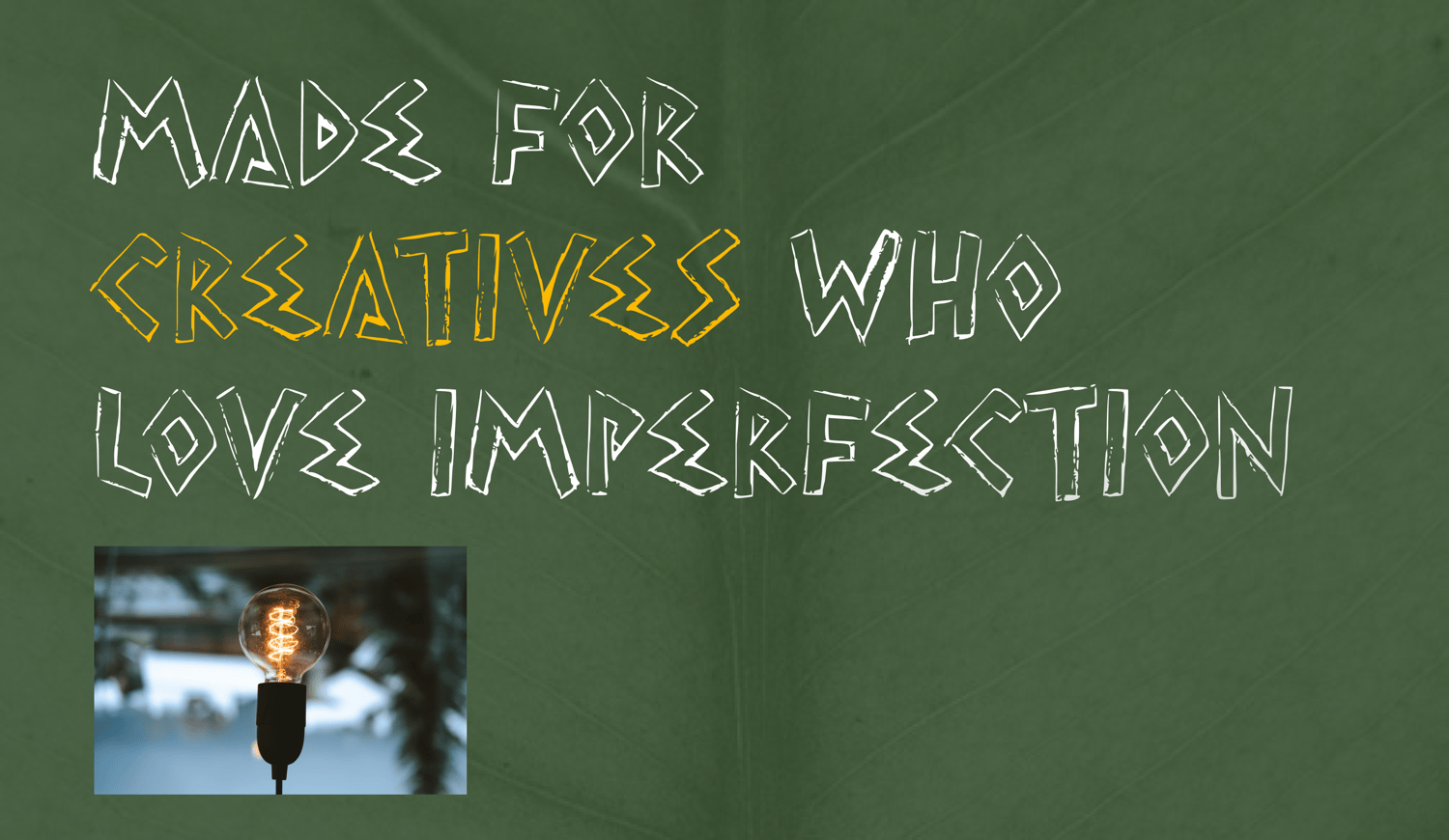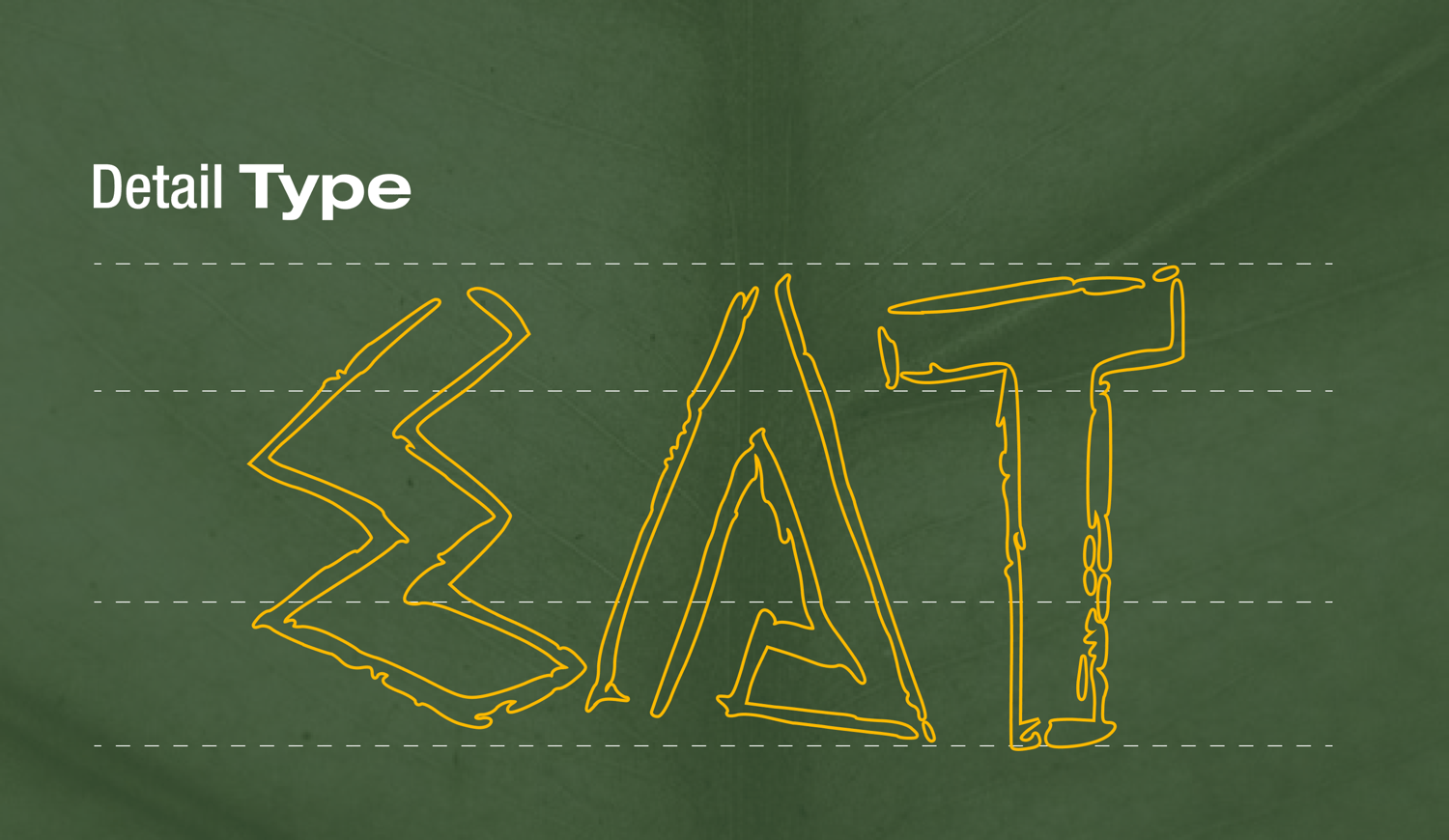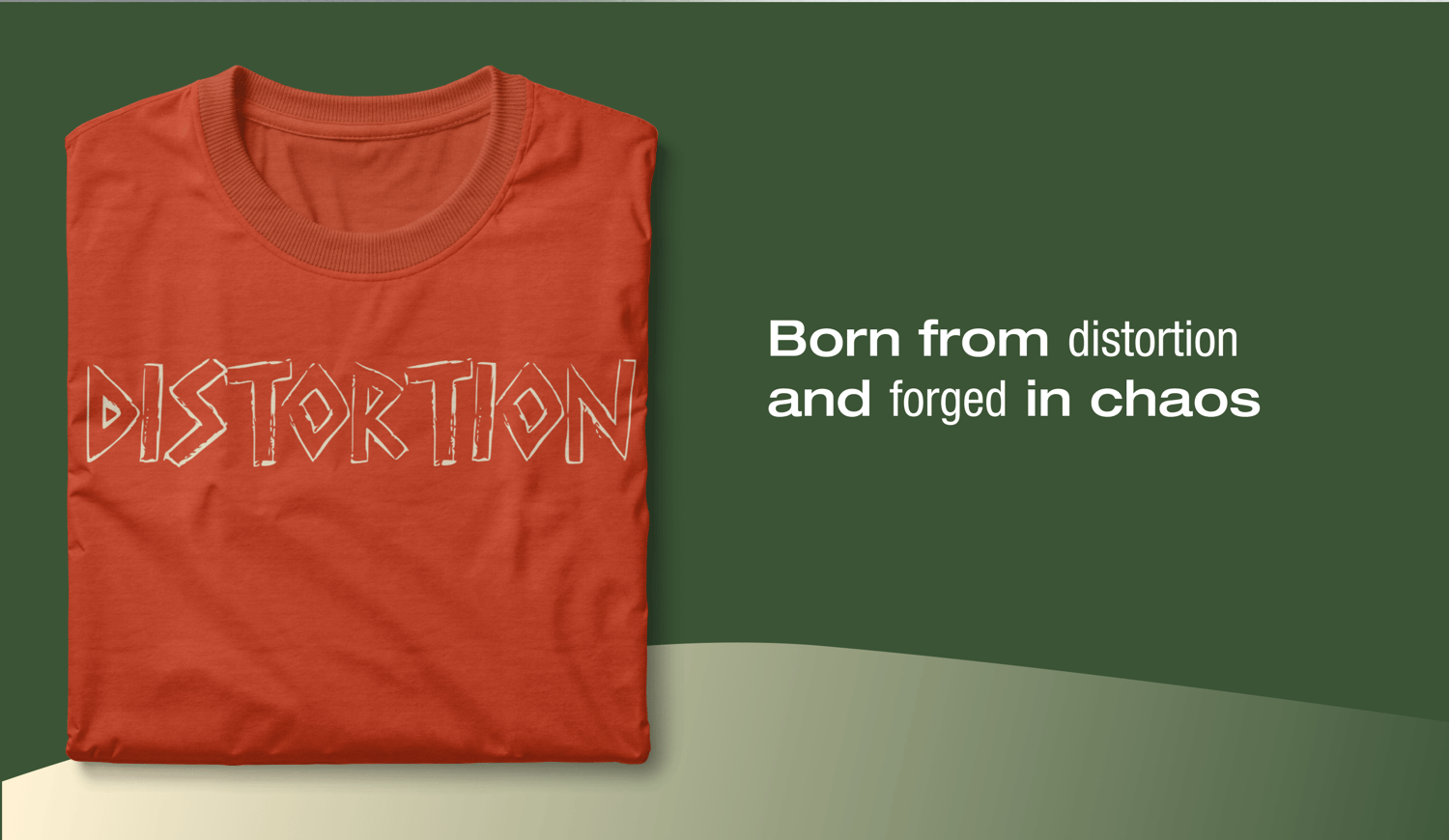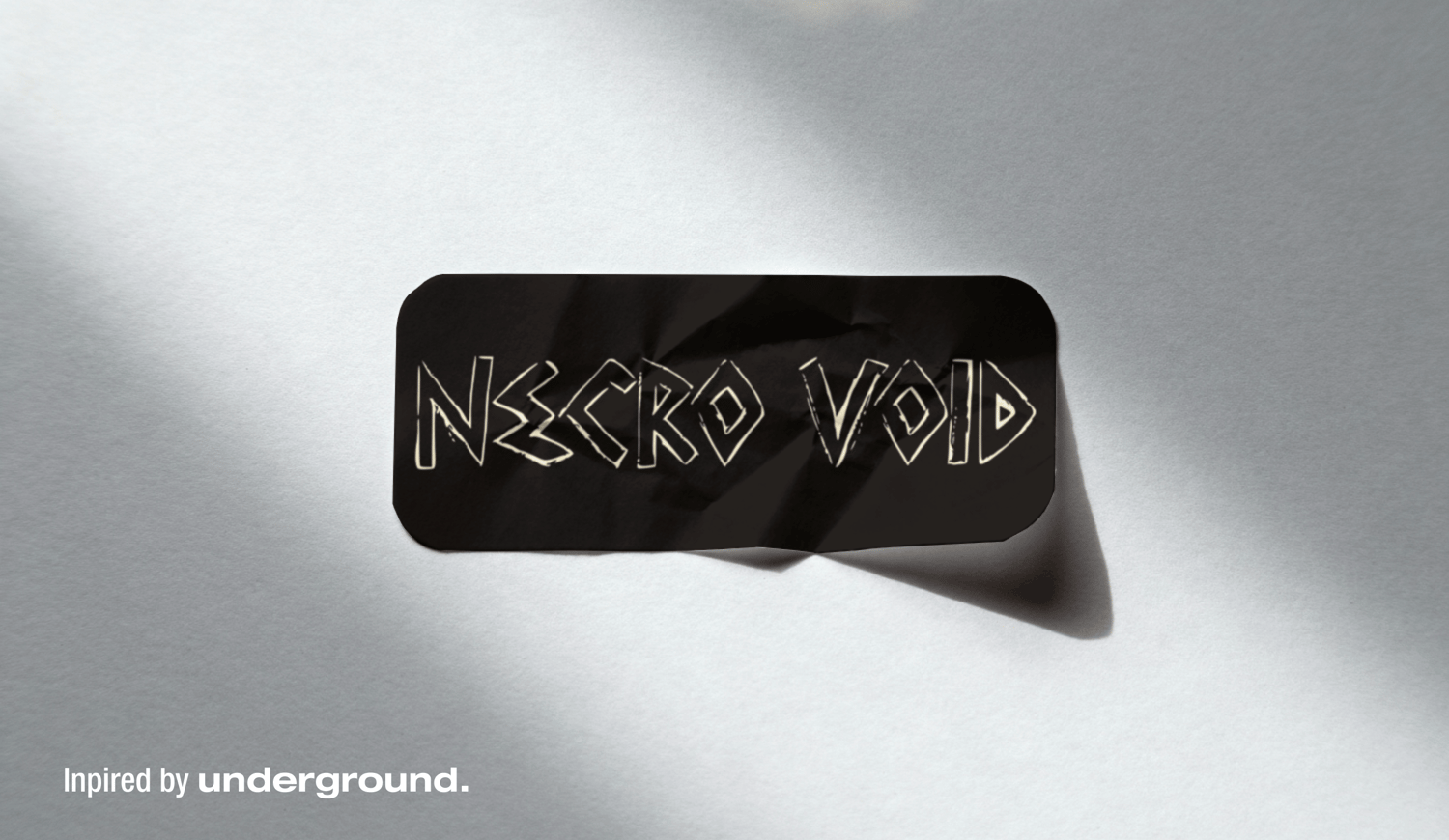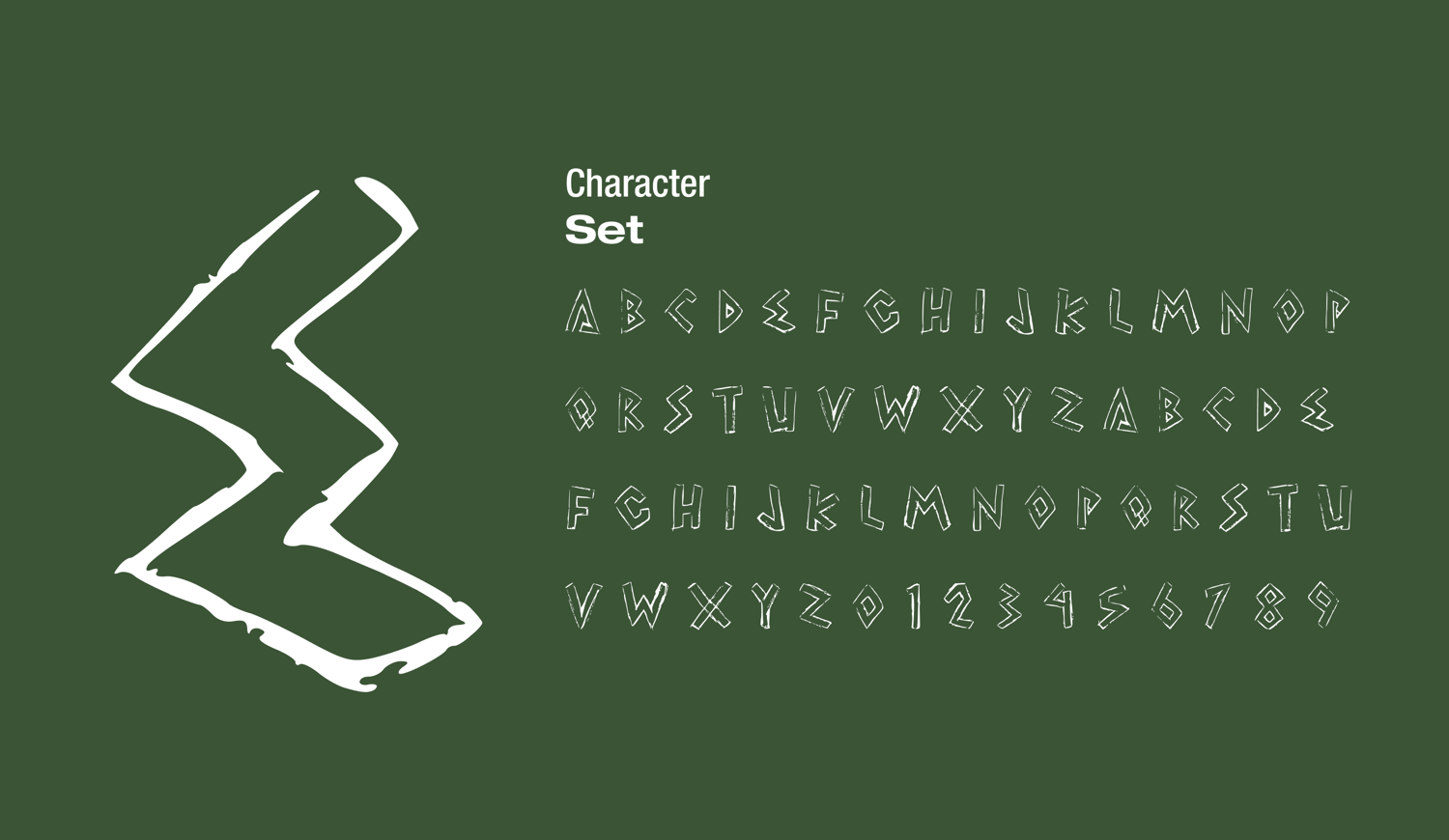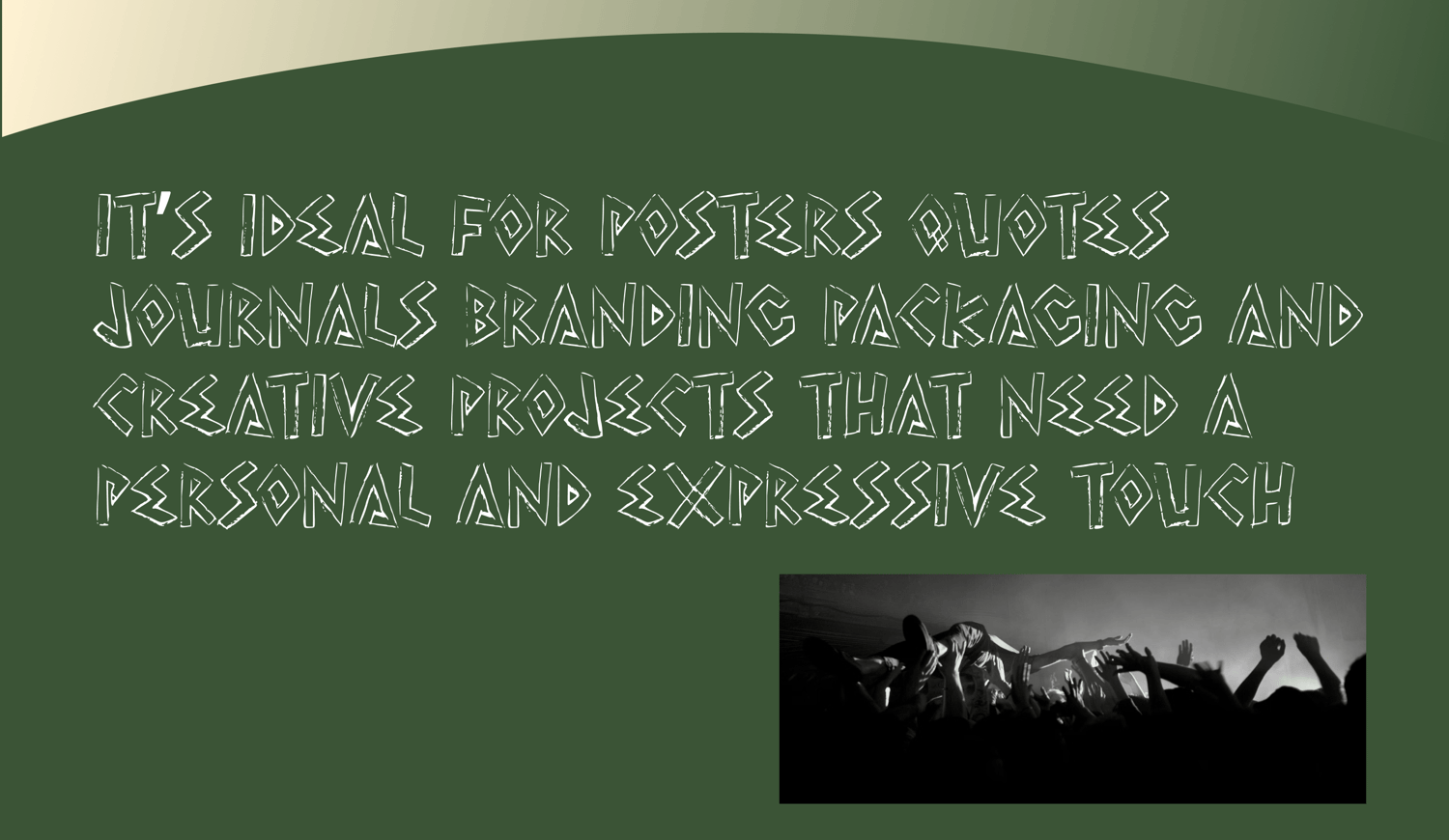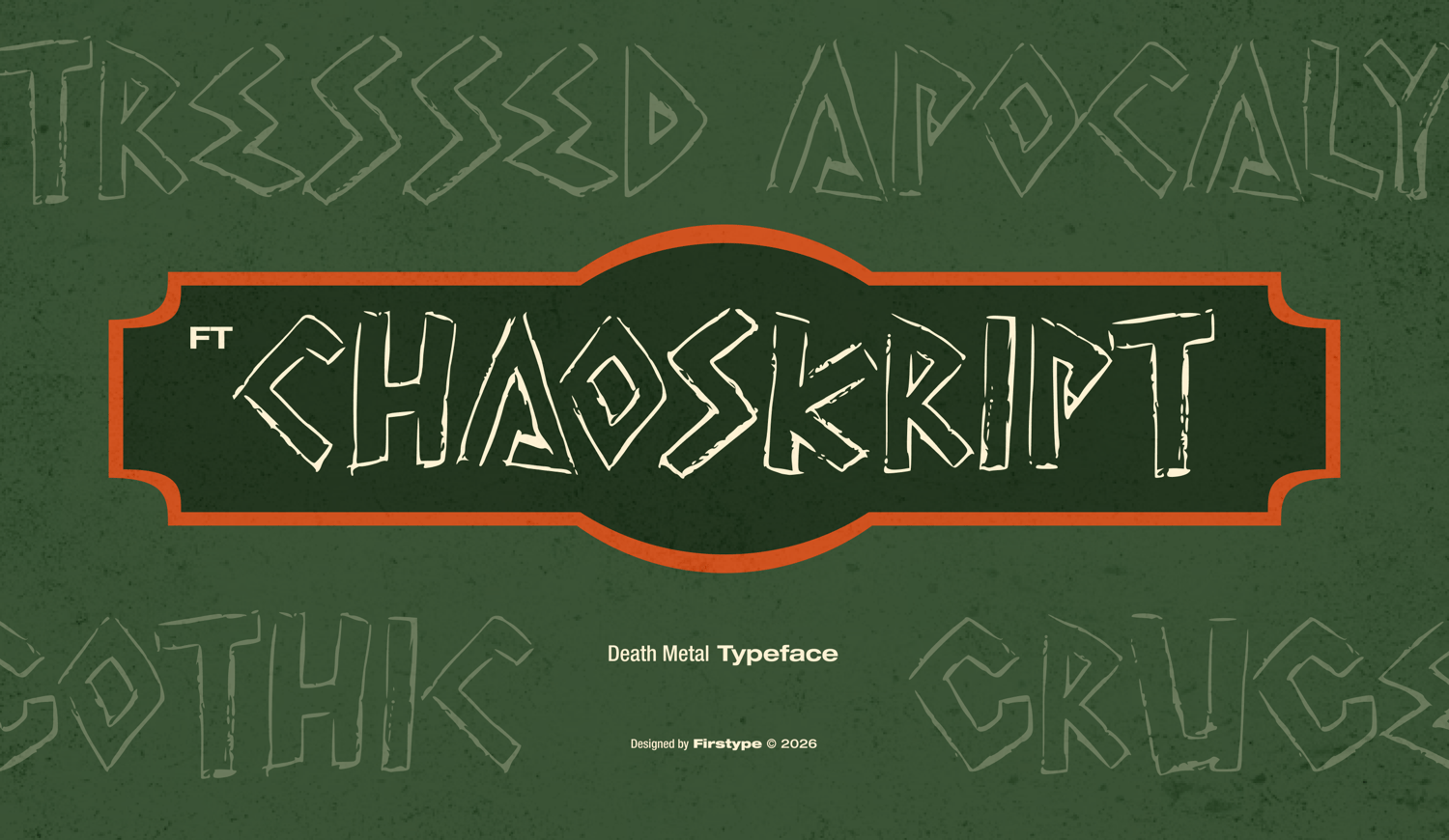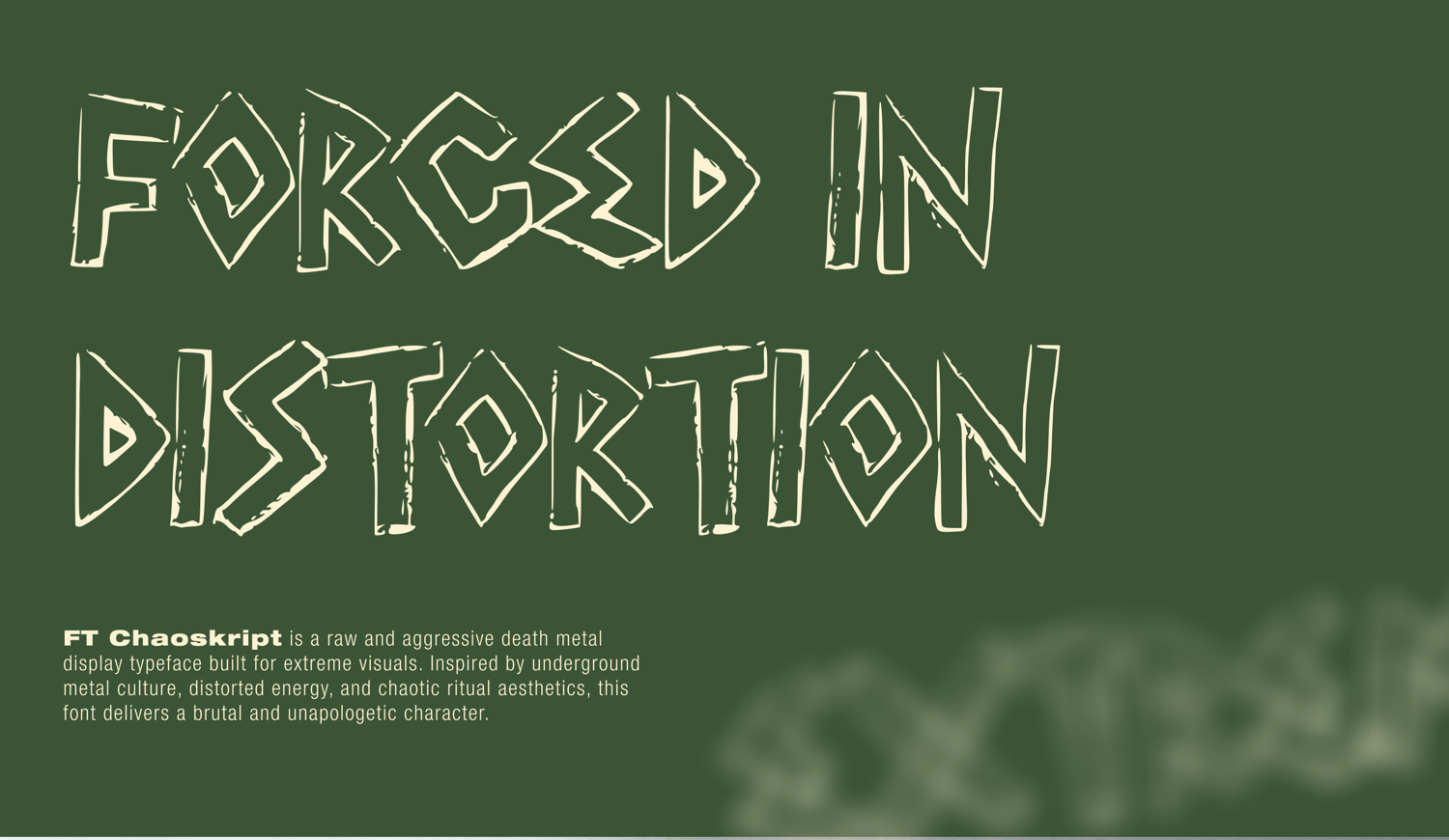
FT Chaoskript - Aggressive Death Metal Display Typeface
Unleash the Brutality: FT Chaoskript by Firstype Studio
Born from distortion and forged in chaos, FT Chaoskript is a raw and aggressive death metal display typeface built for extreme visuals. Designed by Firstype Studio in 2026, this font is a tribute to the unapologetic energy of the underground scene.
Inspired by underground metal culture, distorted energy, and chaotic ritual aesthetics, FT Chaoskript delivers a brutal and unapologetic character to any design. Whether you are working on a dark art project or high-end streetwear, this typeface cuts through the noise with its sharp, jagged edges and gothic undertones.
Perfect for High-Impact Visuals:
- Music Industry: Extreme metal band logos, album covers, and world tour posters.
- Apparel & Streetwear: Bold "Distortion" t-shirt prints and edgy brand identities.
- Dark Aesthetics: Gothic branding, horror movie titles, and underground event flyers.
- Editorial: High-contrast headings for "Tressed Apocaly" or "Necro Void" styled layouts.
- Vibe: Aggressive, Distorted, Underground, Ritualistic.
- Characters: Uppercase, Numbers, and Core Punctuations.